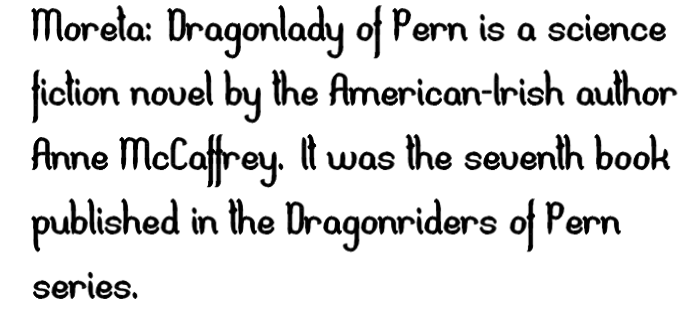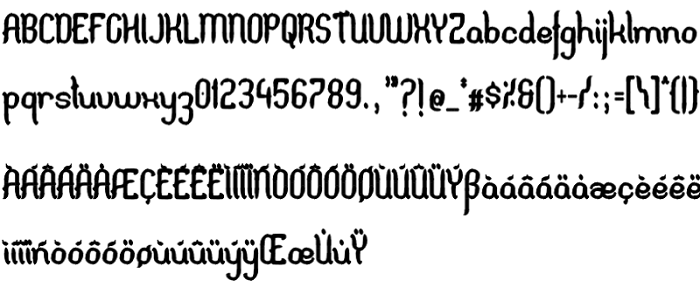
added basic kerning
Wow. That feeling of handwriting that you know how to reflect in your fonts... Will accents and other glyphs from More Latin come soon? I'm waiting for. Congrats.
@elmoyenique added basic accents